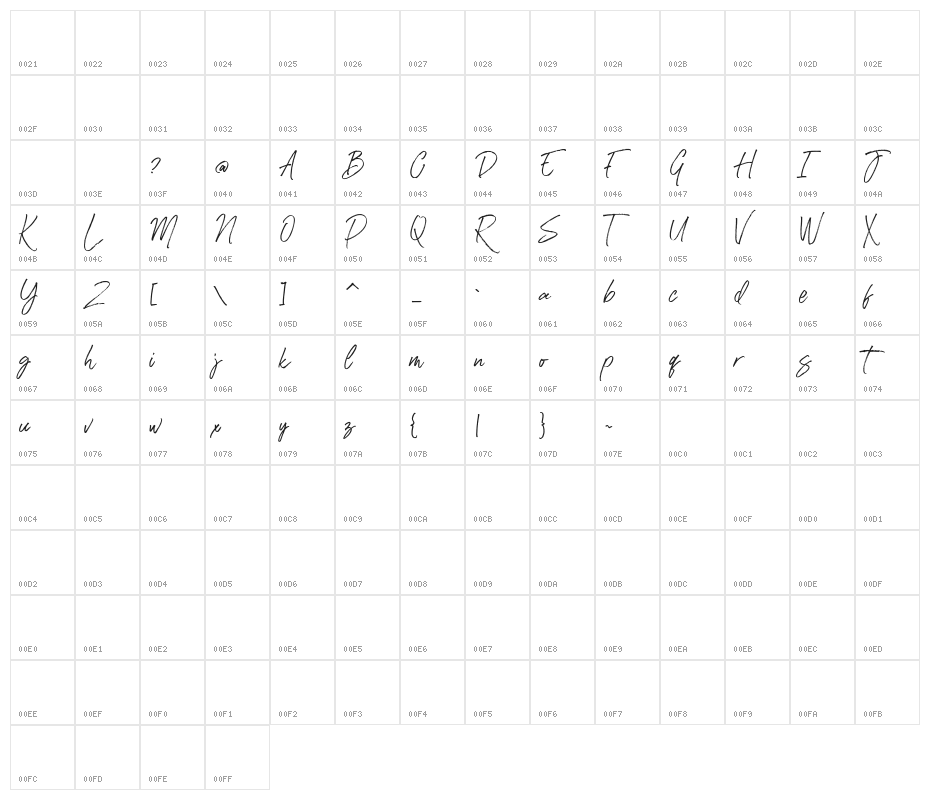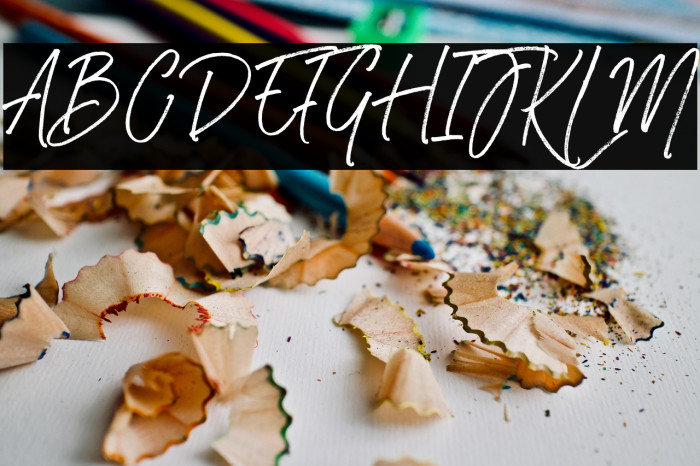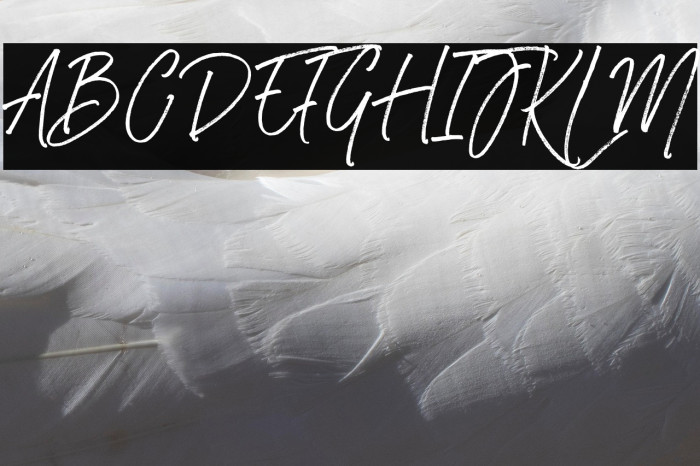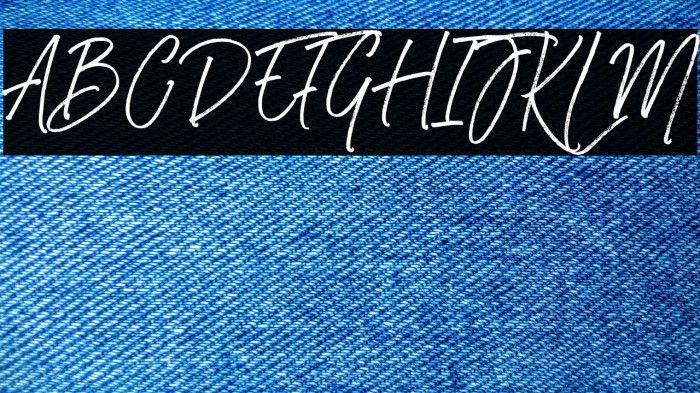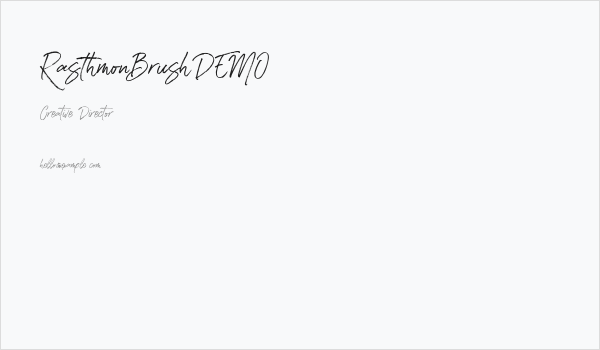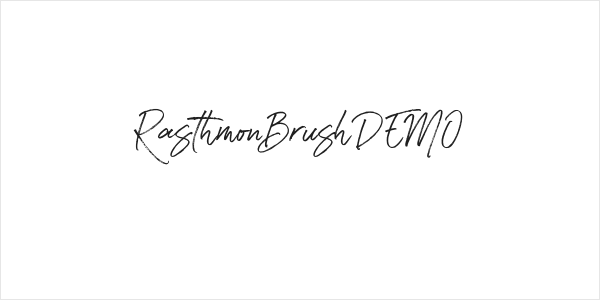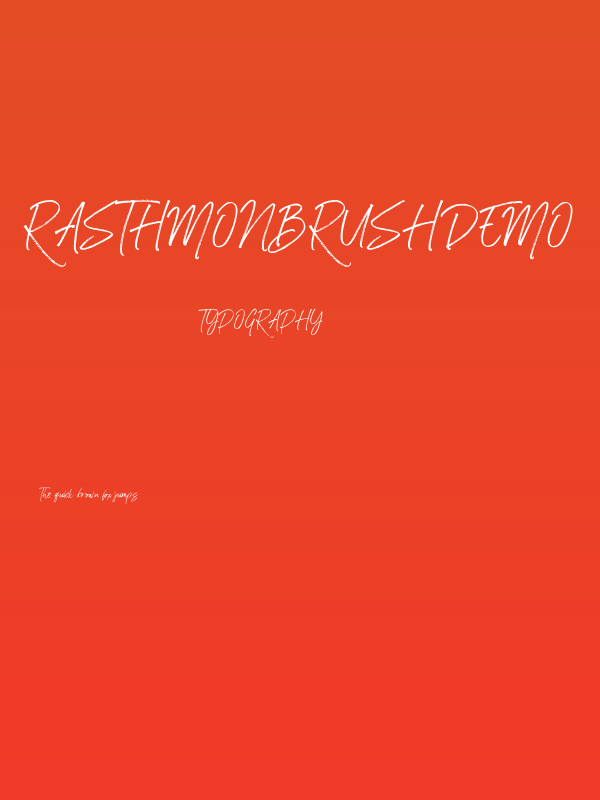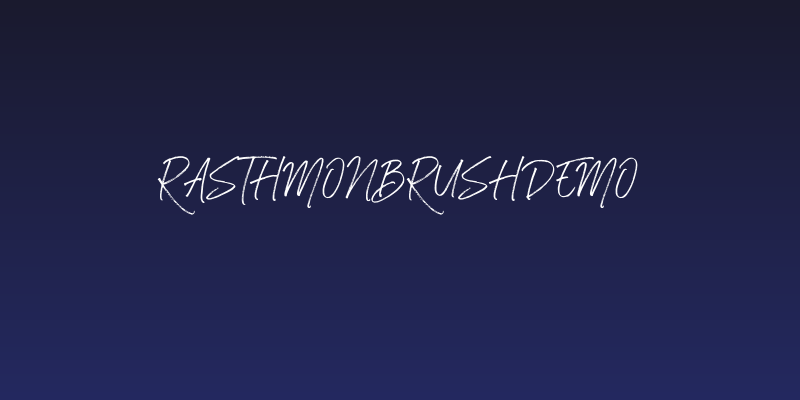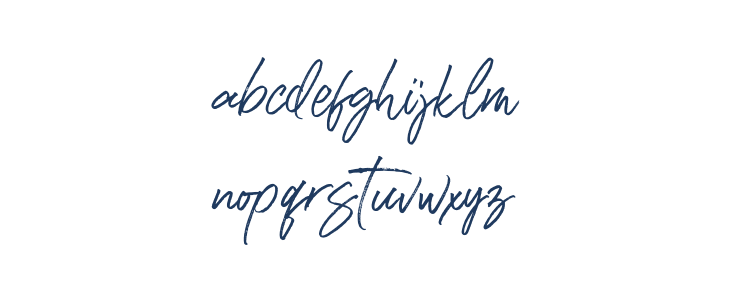
RasthmonBrushDEMO Font
RasthmonBrushDEMO Description
This font exudes a dynamic and energetic feel, characterized by its brush-like strokes that mimic the fluidity of hand-drawn script. The letters are slightly slanted, adding a sense of motion and liveliness. The uppercase and lowercase letters maintain a consistent style, with varying stroke widths that create a natural, handwritten appearance. The texture of the strokes gives it a raw, artistic vibe, making it ideal for creative projects. The font's unique style is perfect for capturing attention and conveying a personal touch.
| Proposed Projects | Ideal for branding, invitations, posters, and any project requiring a personal, artistic touch. |